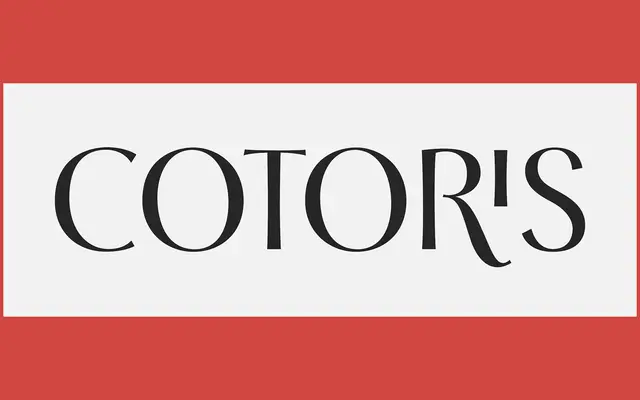
Cotoris
sans-serifglyphic sans
A glyphic sans serif from Dharma Type with ligatures and small caps, built for refined, feminine design contexts.
A glyphic sans with incised detailing that lends it a more calligraphic warmth than a clean geometric or grotesque. Ligatures and small caps are included for richer typographic control. Recognised as a Rising Star on MyFonts in June 2007 shortly after release.
Described explicitly as a glyphic sans serif, combining the structure of a sans with subtle incised or flared stroke endings rather than full serifs, placing it in the glyphic subcategory.